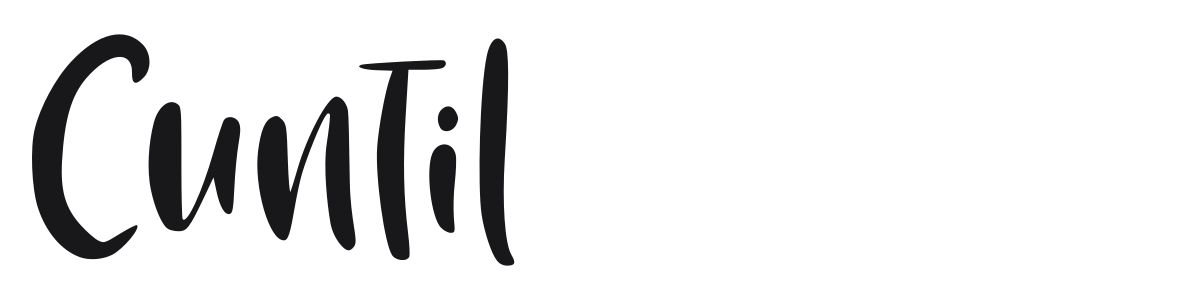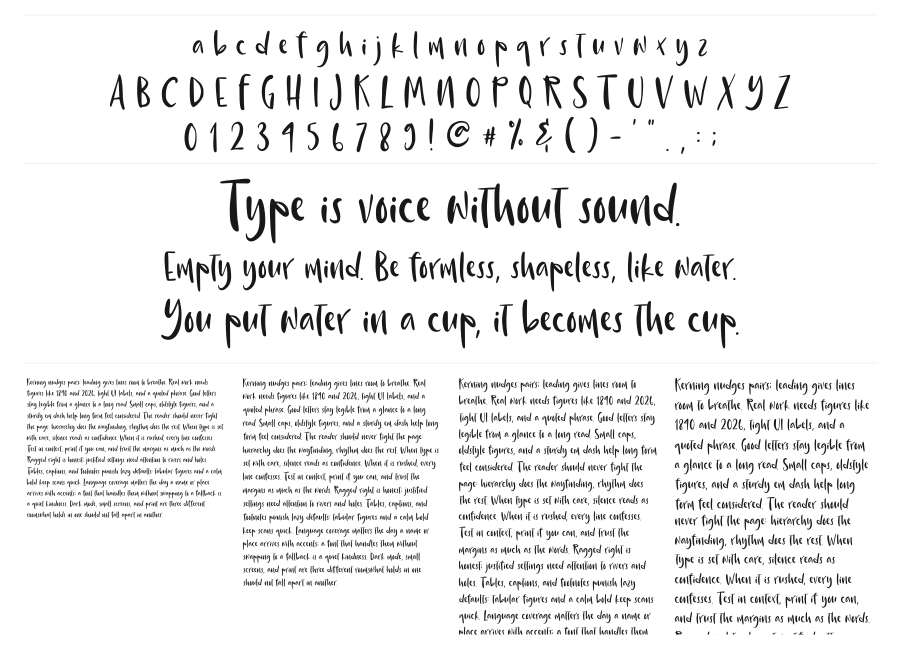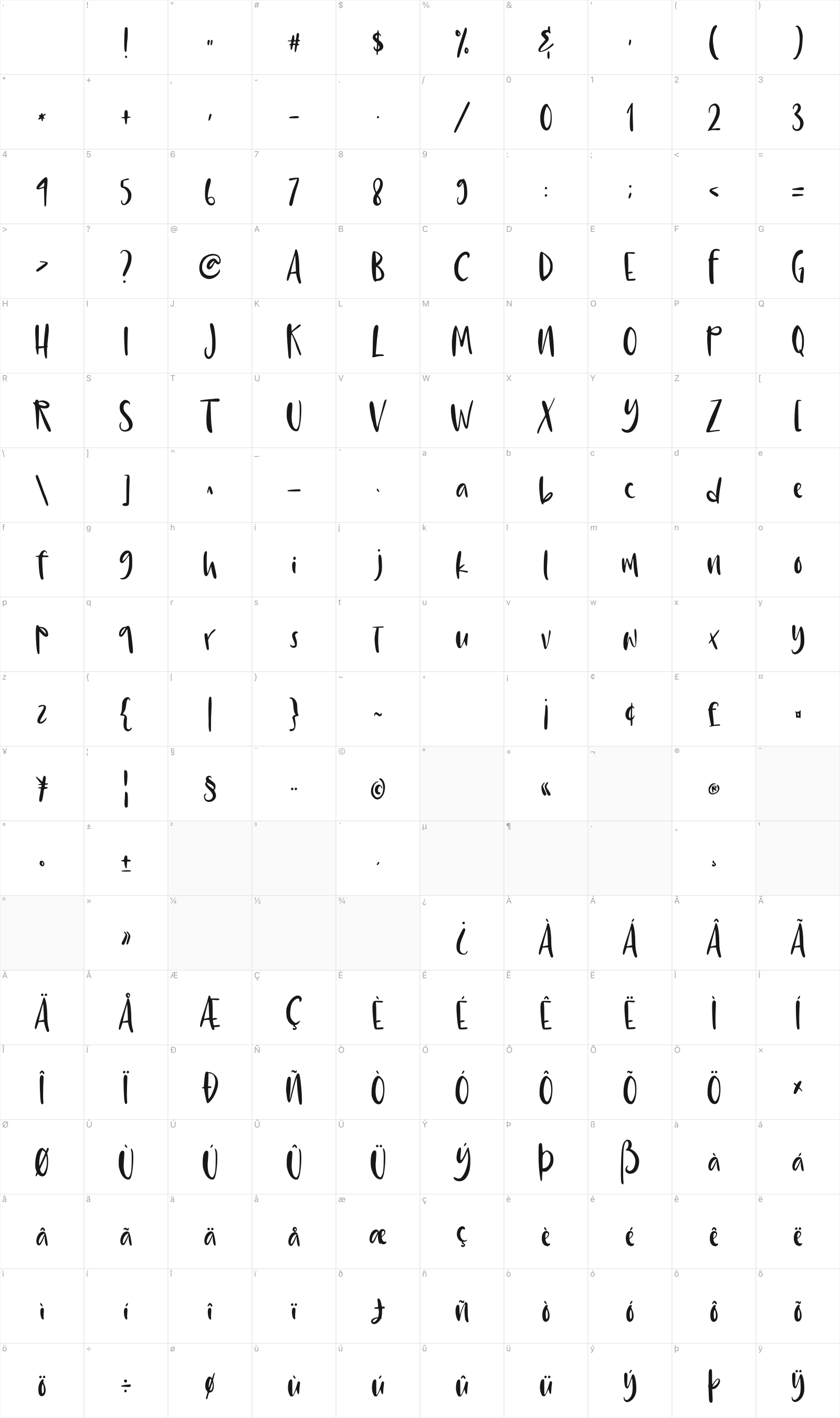
Cuntil
Cuntil is a casual marker brush script with a lively, hand-lettered feel and naturally bouncy rhythm. Strokes vary between chunky downstrokes and fluid thin connectors, giving it the genuine texture of a real brush marker. It carries an upbeat, approachable energy that works well for branding, packaging, and social media graphics.